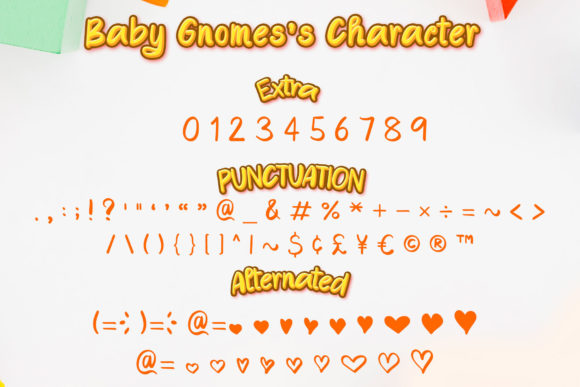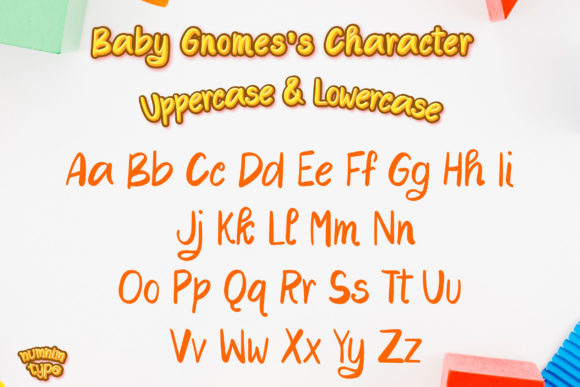
Baby Gnomes Font
db-ku.com - Script & Handwritten -- Baby Gnomes is a joyful and friendly handwritten font, featuring cute doodle elements. Fall in love with its sweet, versatile style and use it to create lovely designs for school or child related.